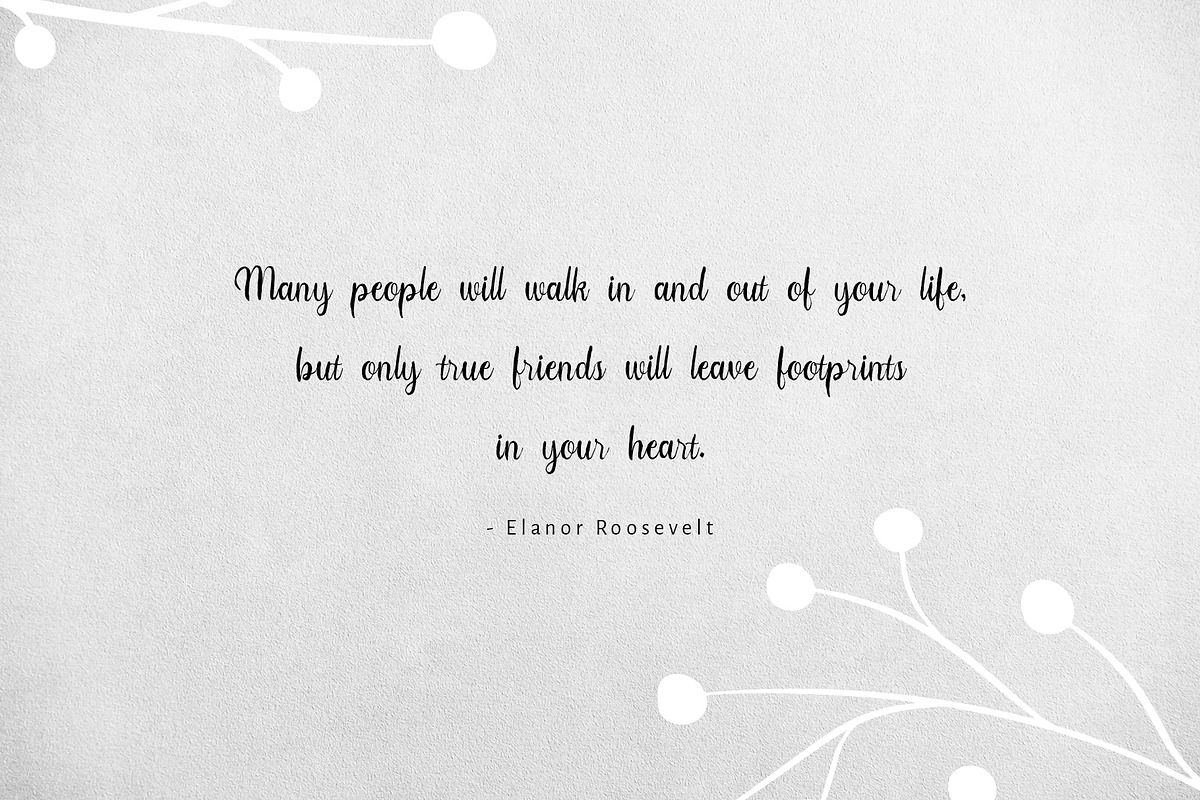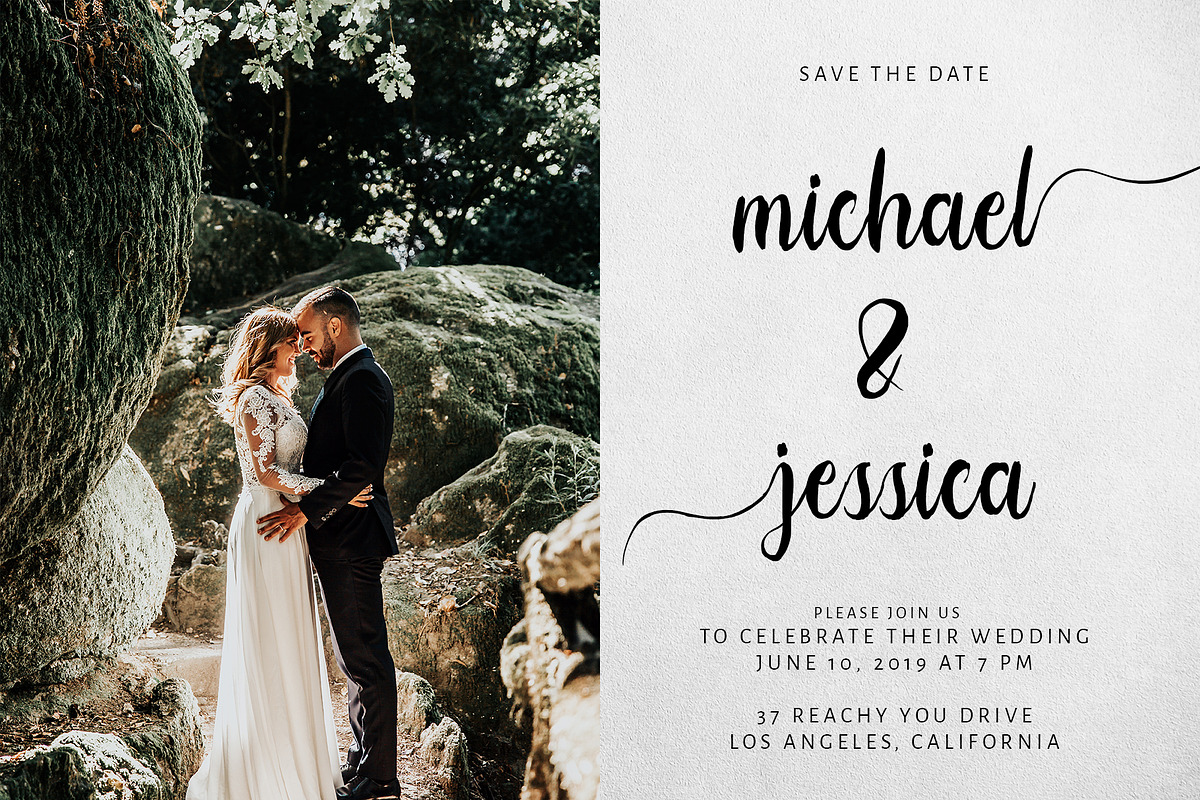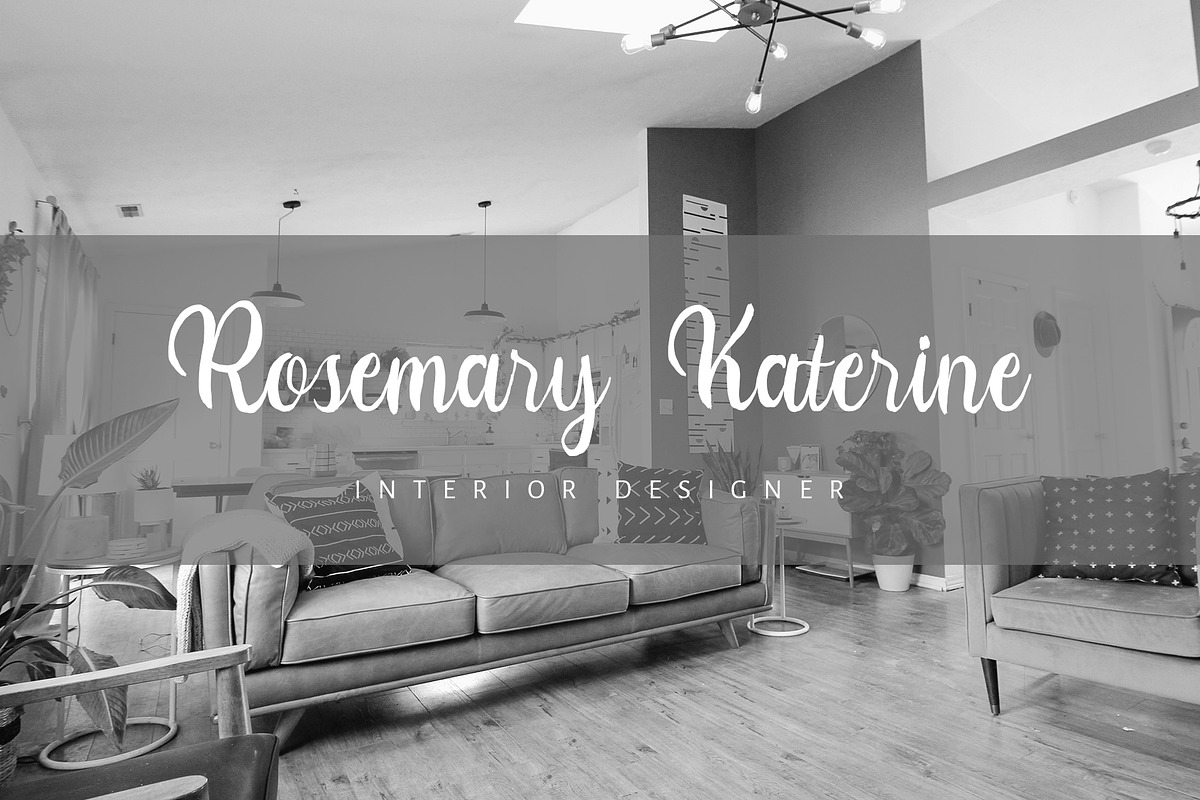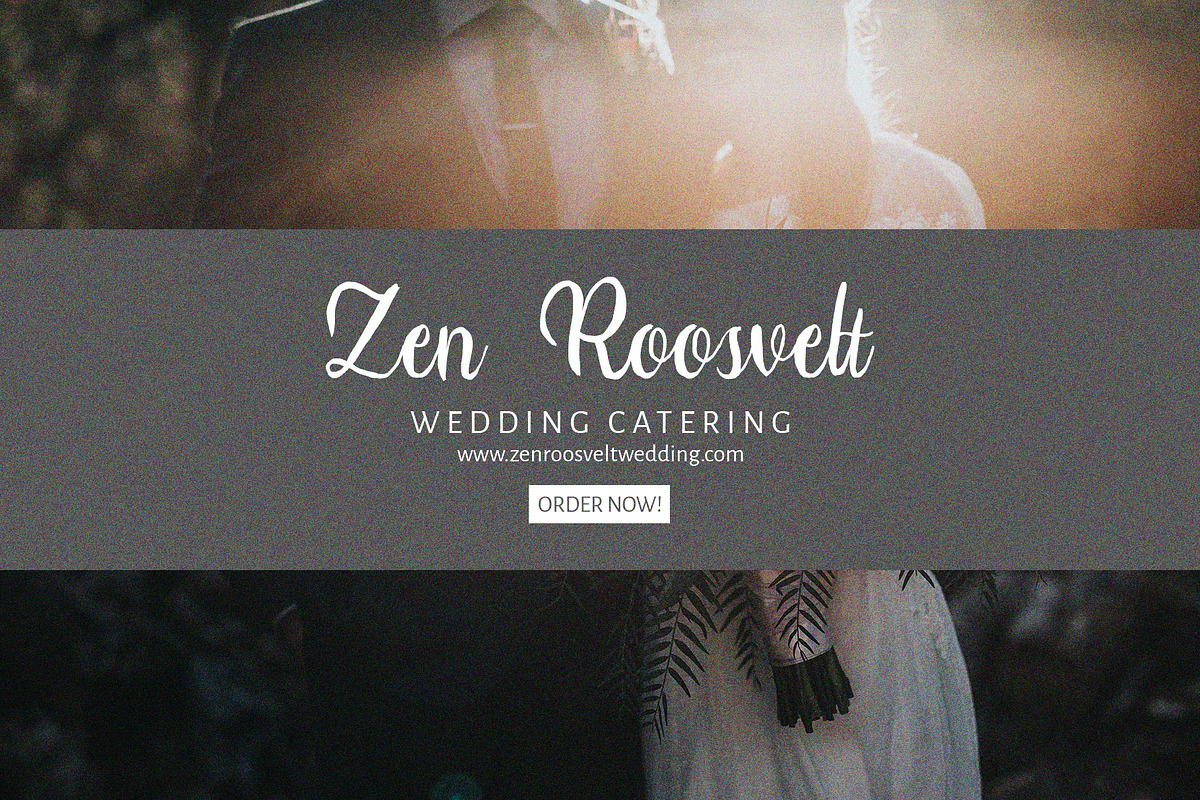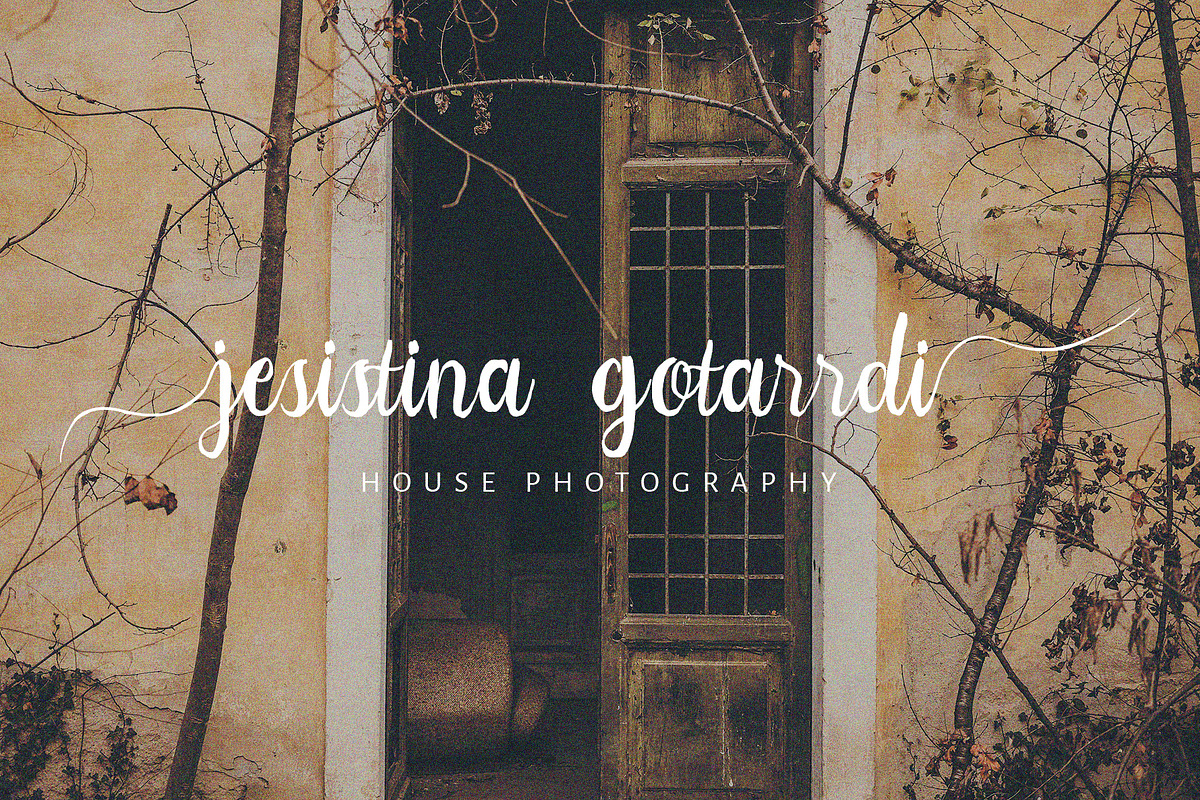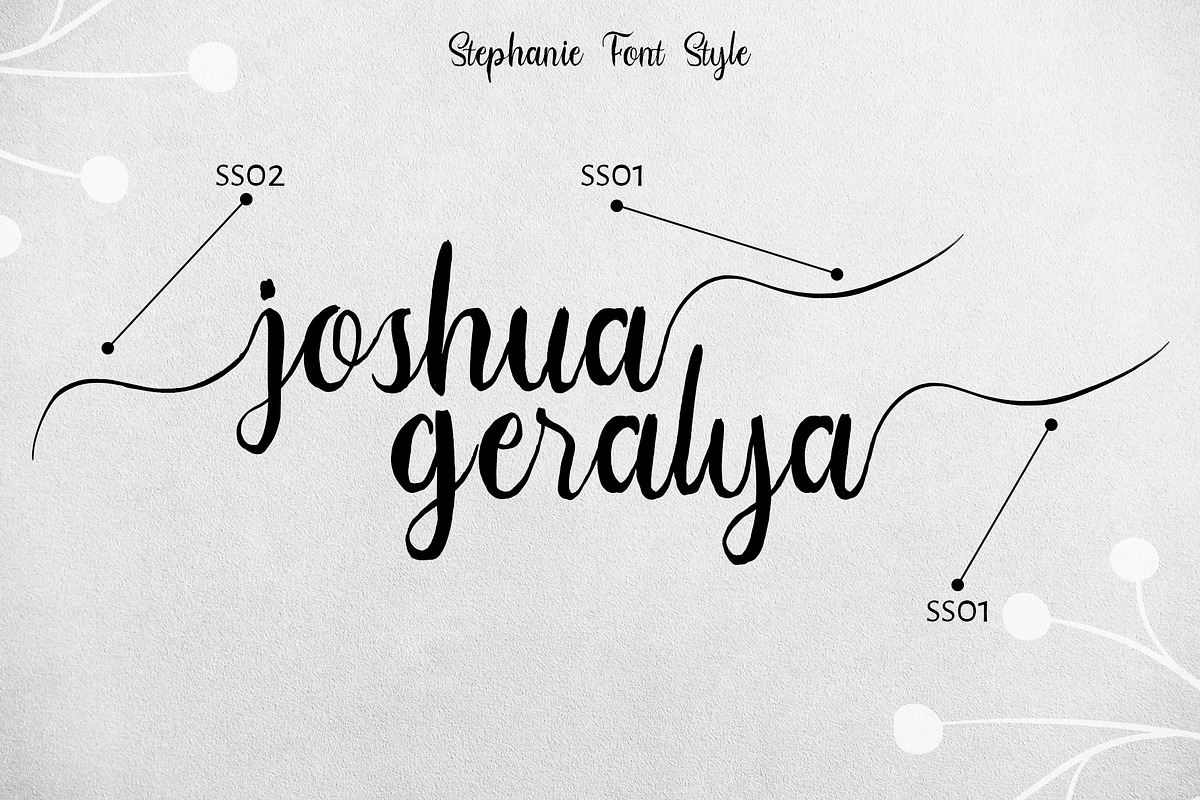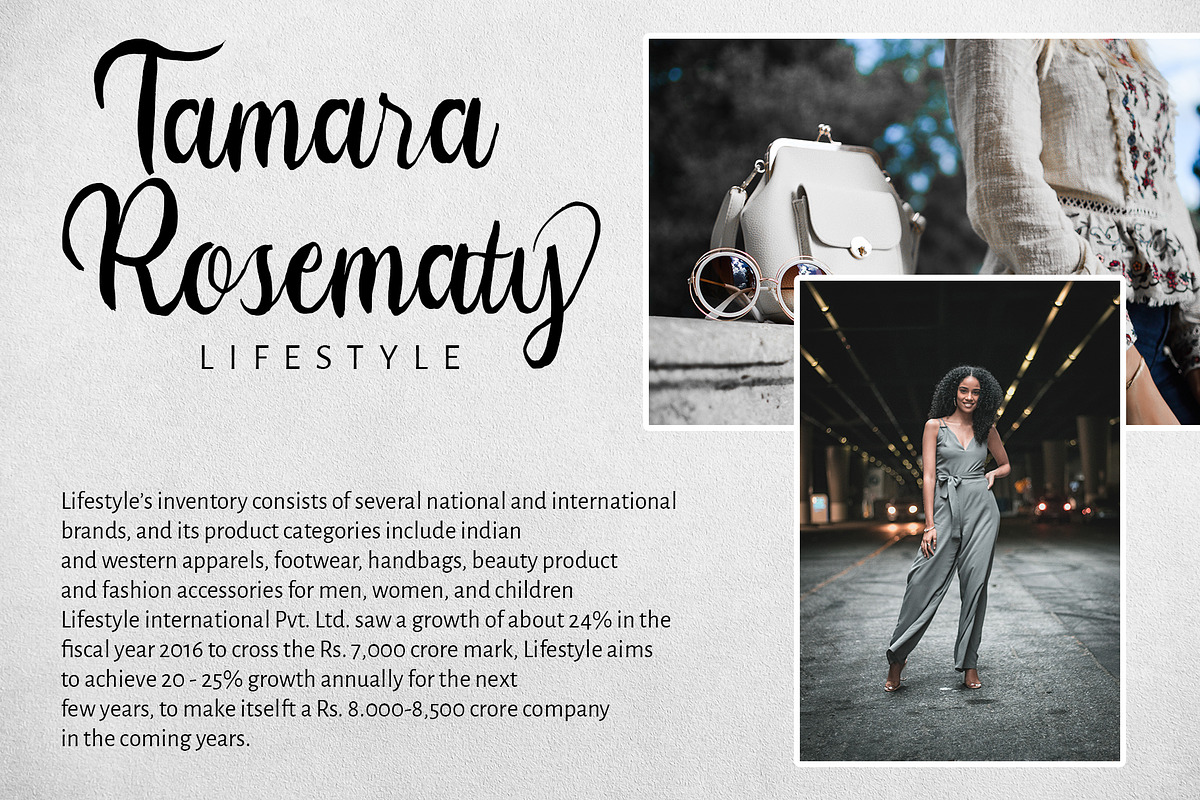
Stephanie Script Font
Introducing the elegant new Stephanie Script Font! For those of you who are needing a touch of elegance and modernity for your designs, this font was created for you!
Stephanie Script is suitable for all your design project needs such as: logo design, branding, covers, posters, magazines, wedding invitations, greeting cards, quotes and more.
Stephanie Script was built with OpenType features and includes beginning and ending swashes, alternate swash characters for most lowercase letters, numbers, punctuation, and it also supports other languages :)
Stephanie Script Font by Analogous fits naturally into Branding, posters, packaging, typography.